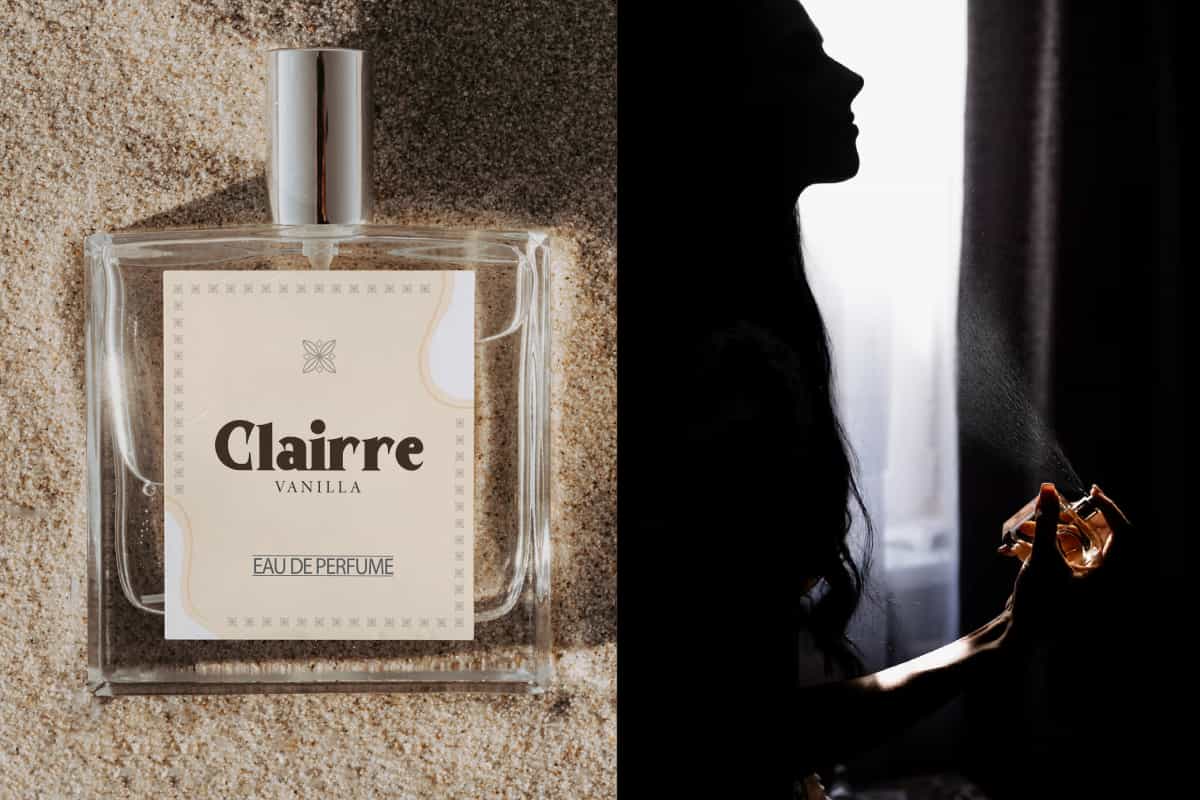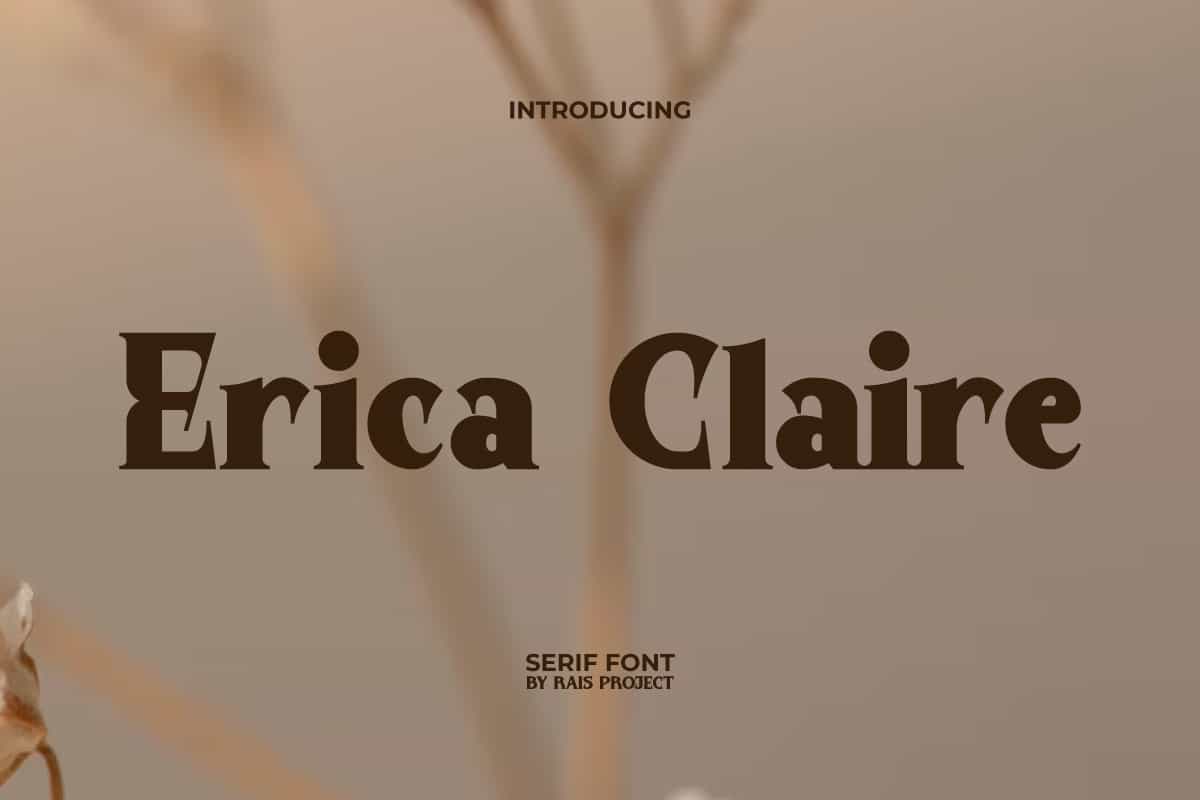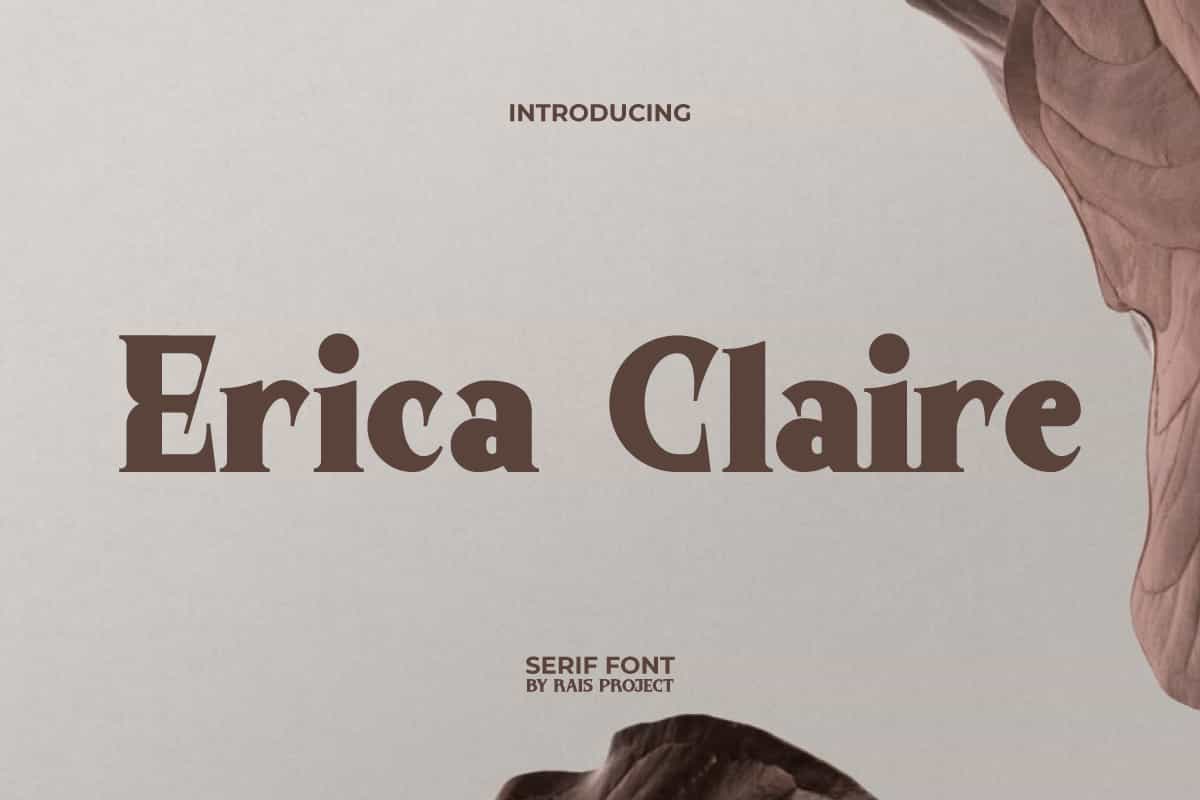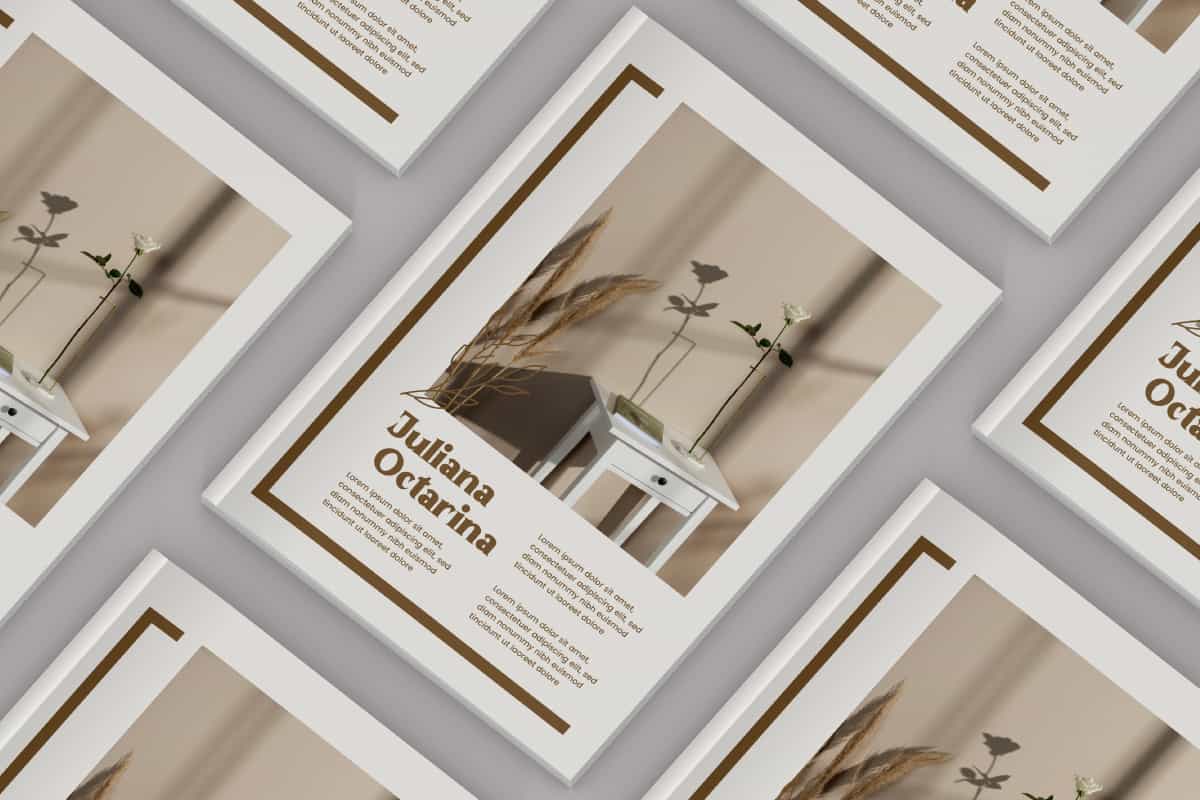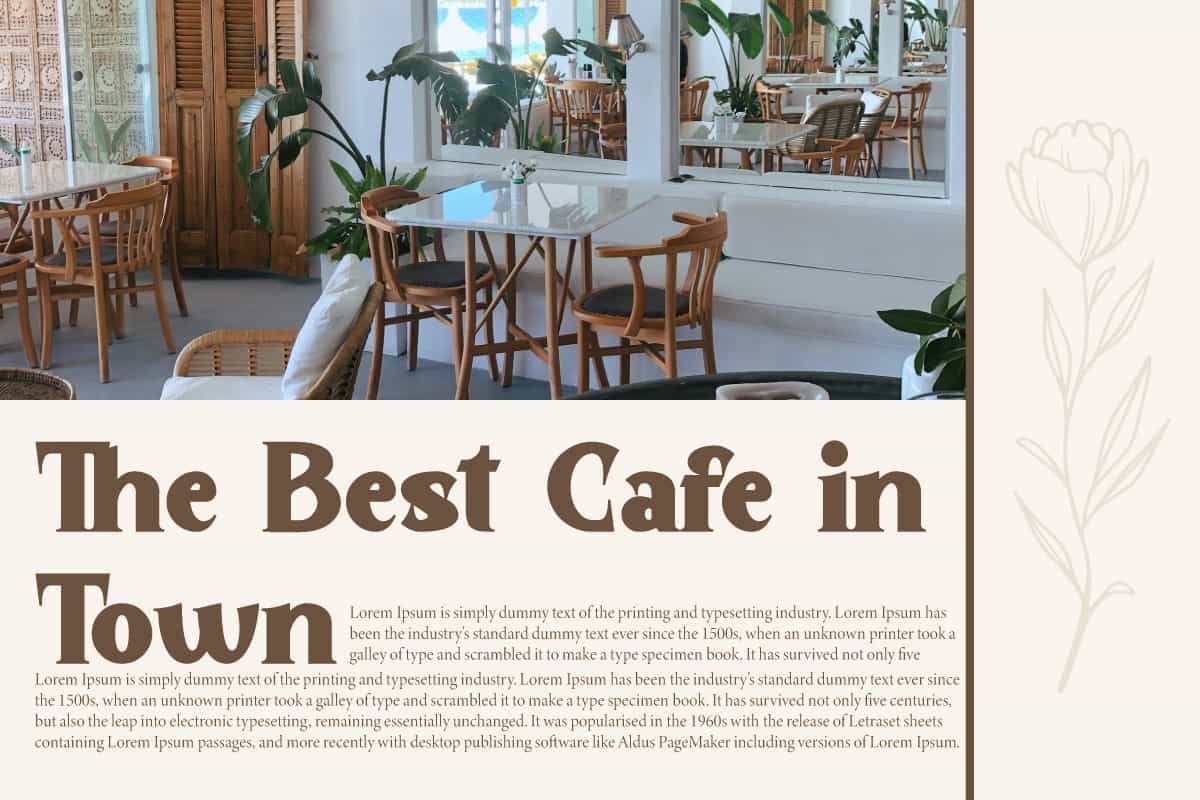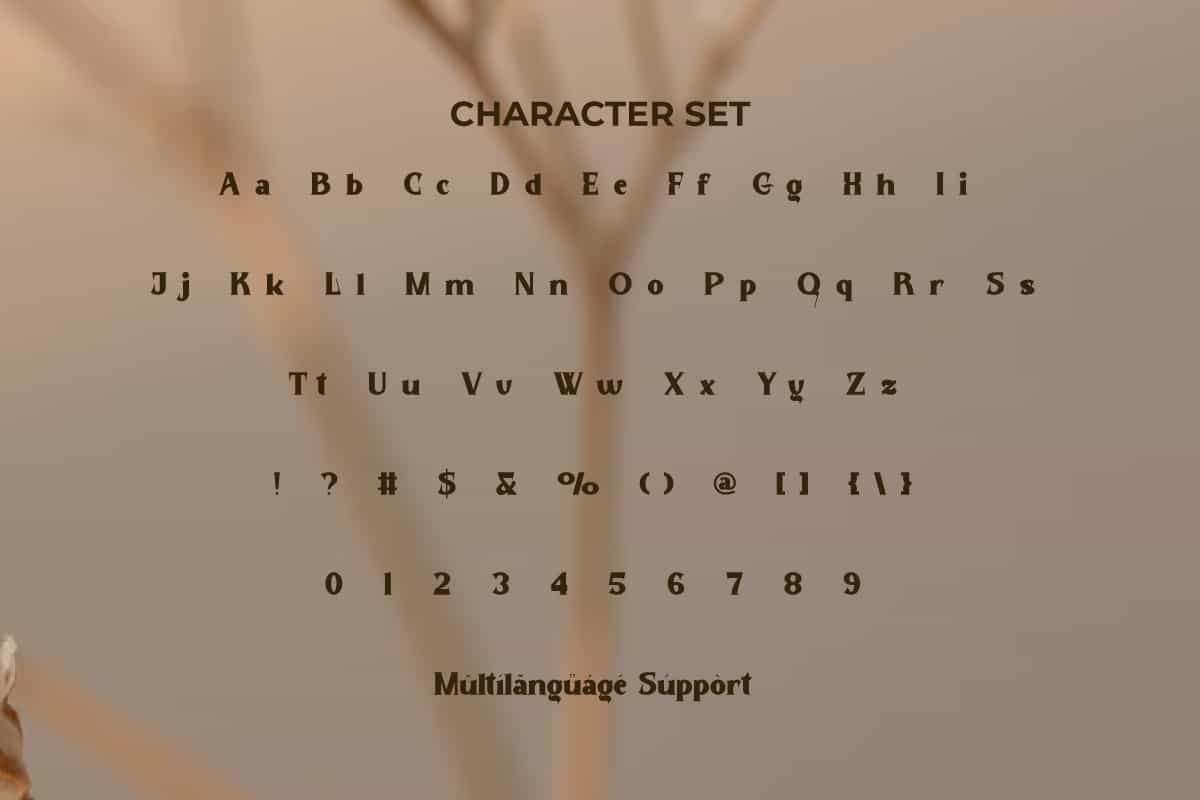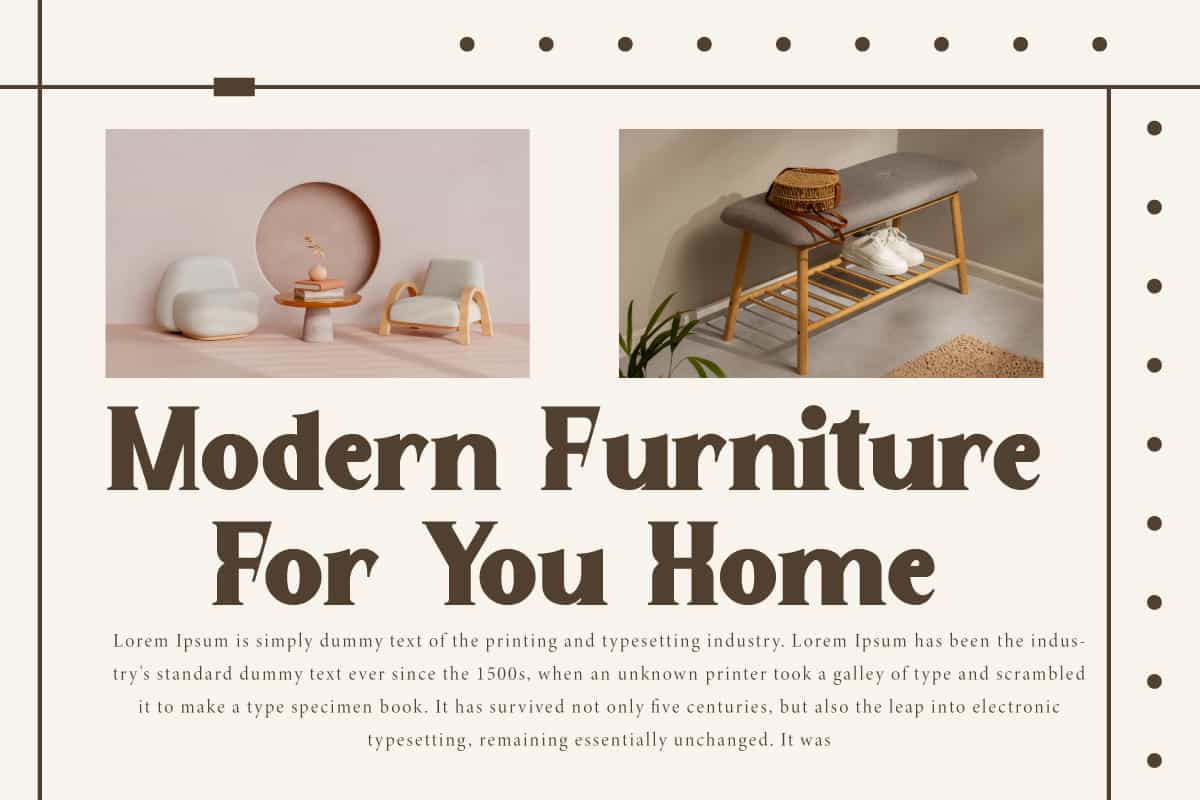
Erica Claire Font
Erica Claire Font is a crisp and aesthetic serif font. Use this font on your designs to look stunning!
Erica Claire Font is a unique and fashionable serif display font, well made by RaisProject. This font has an attractive shape so it can add beauty to every design you make. It will be good for label, poster, invitation, signage, cover, menu, custom design, brand image, product packaging, quotes, stationery, web, and more!
Erica Claire Font includes a full set of Uppercase and Lowercase Letters, Numerals, Punctuation and Symbol. This beautiful font will be suitable for various industries, such as perfume, beauty product, fashion, accessories, advertisement, event or festival, cafe, homeware, photography, printing, publishing, real estate, etc.